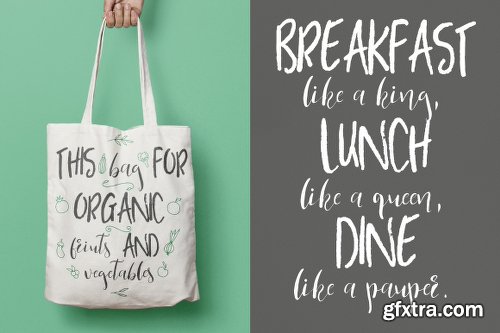
CM - Yellow Lime Font Duo + Vector Doodle 731961
Story of Yellow Lime is a lovely Font Duo. The script comes with alternative letters. Very suitable for book covers, stationery, greeting cards, posters. Also with their help, you can create a logo or beautiful postcard and more!
Yellow Lime: Hand lettered calligraphy-type script, with alternative letters [OTF, TTF, WOFF and WOFF 2]
Yellow Lime Display: Cute and charming uppercase font [OTF, TTF, WOFF and WOFF 2]